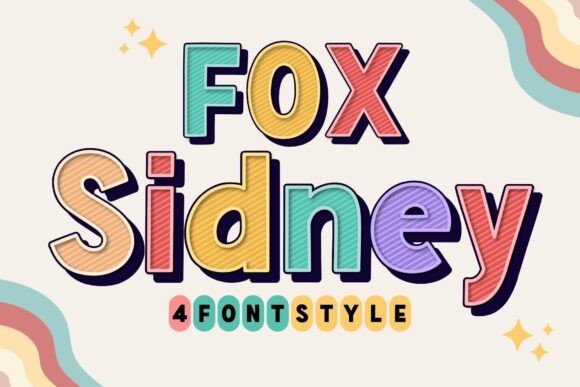
Introducing Fox Sidney Font: The Ultimate Display Font for Vibrant Designs
Are you looking for a font that can add a cheerful and energetic feel to your projects? Look no further than Fox Sidney Font. This fun and vibrant display font is designed to bring a lively and engaging touch to your designs, making it perfect for eye-catching headlines, posters, logos, and playful designs.
What Makes Fox Sidney Font So Special?
Fox Sidney Font is a versatile display font that offers four unique styles—Regular, Strokes, Outline, and Shadow. This range of styles allows you to experiment with different looks and feels, ensuring that your designs always stand out. The font features bold letterforms, a hand-drawn texture, and a colorful retro aesthetic that gives it a charming and playful style.
The Four Unique Styles of Fox Sidney Font
One of the standout features of Fox Sidney Font is its range of styles. Each style offers a unique take on the font, allowing you to choose the one that best suits your design needs.
- Regular: The regular style is the foundation of the Fox Sidney Font family. It features bold, hand-drawn letterforms with a playful and energetic feel.
- Strokes: The Strokes style adds a dynamic element to the font, with lines and strokes that give it a sense of movement and energy.
- Outline: The Outline style offers a more subtle take on the font, with a focus on the outline of the letterforms rather than the fill.
- Shadow: The Shadow style adds a touch of drama to the font, with a subtle shadow effect that gives it depth and dimension.
The Design Elements of Fox Sidney Font
Fox Sidney Font features a range of design elements that make it perfect for vibrant and engaging designs. The font has a bold and playful feel, with hand-drawn letterforms that give it a unique and charming style.
- Bold Letterforms: The bold letterforms of Fox Sidney Font make it perfect for headlines and titles. The font is designed to stand out, with chunky and playful letterforms that grab attention.
- Hand-Drawn Texture: The hand-drawn texture of the font gives it a unique and organic feel. The texture adds a touch of warmth and personality to the font, making it perfect for designs that need a human touch.
- Colorful Retro Aesthetic: The colorful retro aesthetic of Fox Sidney Font is inspired by classic designs from the past. The font features a bright and bold color palette that is perfect for designs that need a fun and playful touch.
Perfect for a Range of Design Projects
Fox Sidney Font is a versatile font that is perfect for a range of design projects. Whether you’re working on children’s designs, branding, or social media graphics, this font will add a creative and dynamic element to your typography.
- Children’s Designs: Fox Sidney Font is perfect for children’s designs, with its playful and energetic feel making it ideal for kids’ books, posters, and games.
- Branding: The font is also great for branding, with its bold and confident style making it perfect for logos, packaging, and marketing materials.
- Social Media Graphics: Fox Sidney Font is perfect for social media graphics, with its bold and eye-catching style making it ideal for Facebook posts, Instagram stories, and Twitter headers.
Tips for Using Fox Sidney Font
Here are some tips for getting the most out of Fox Sidney Font:
- Experiment with Different Styles: Don’t be afraid to experiment with the different styles of Fox Sidney Font. Each style offers a unique take on the font, so try out different combinations to see what works best for your design.
- Use it for Headlines and Titles: Fox Sidney Font is perfect for headlines and titles, so use it to add a bold and eye-catching touch to your designs.
- Mix it with Other Fonts: Fox Sidney Font works well with other fonts, so don’t be afraid to mix it with different typefaces to create a unique and interesting look.
Fox Sidney Font is a fun and vibrant display font that is perfect for adding a cheerful and energetic feel to your designs. With its range of styles, bold letterforms, hand-drawn texture, and colorful retro aesthetic, this font is ideal for eye-catching headlines, posters, logos, and playful designs. Whether you’re working on children’s designs, branding, or social media graphics, Fox Sidney Font is the perfect choice for adding a creative and dynamic element to your typography.